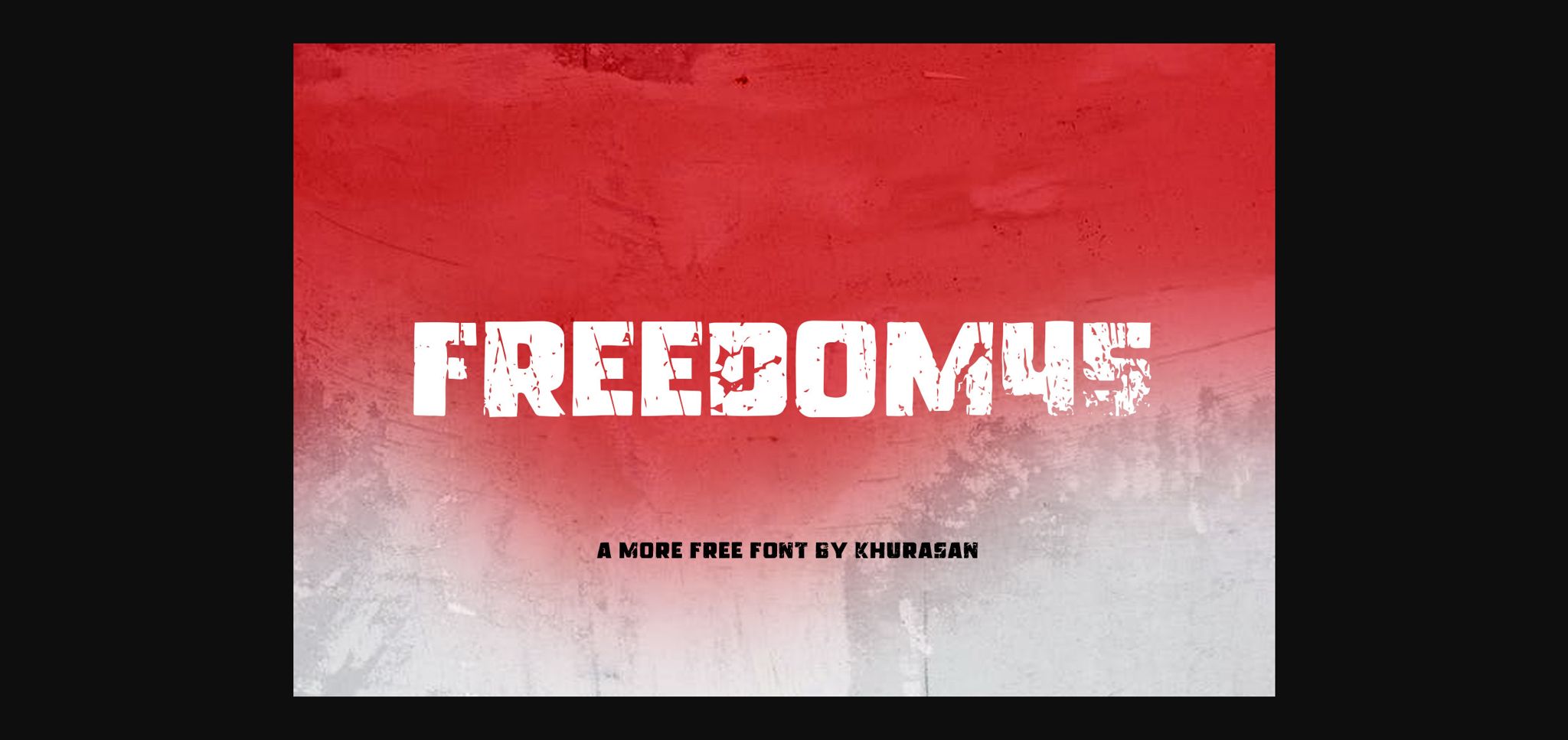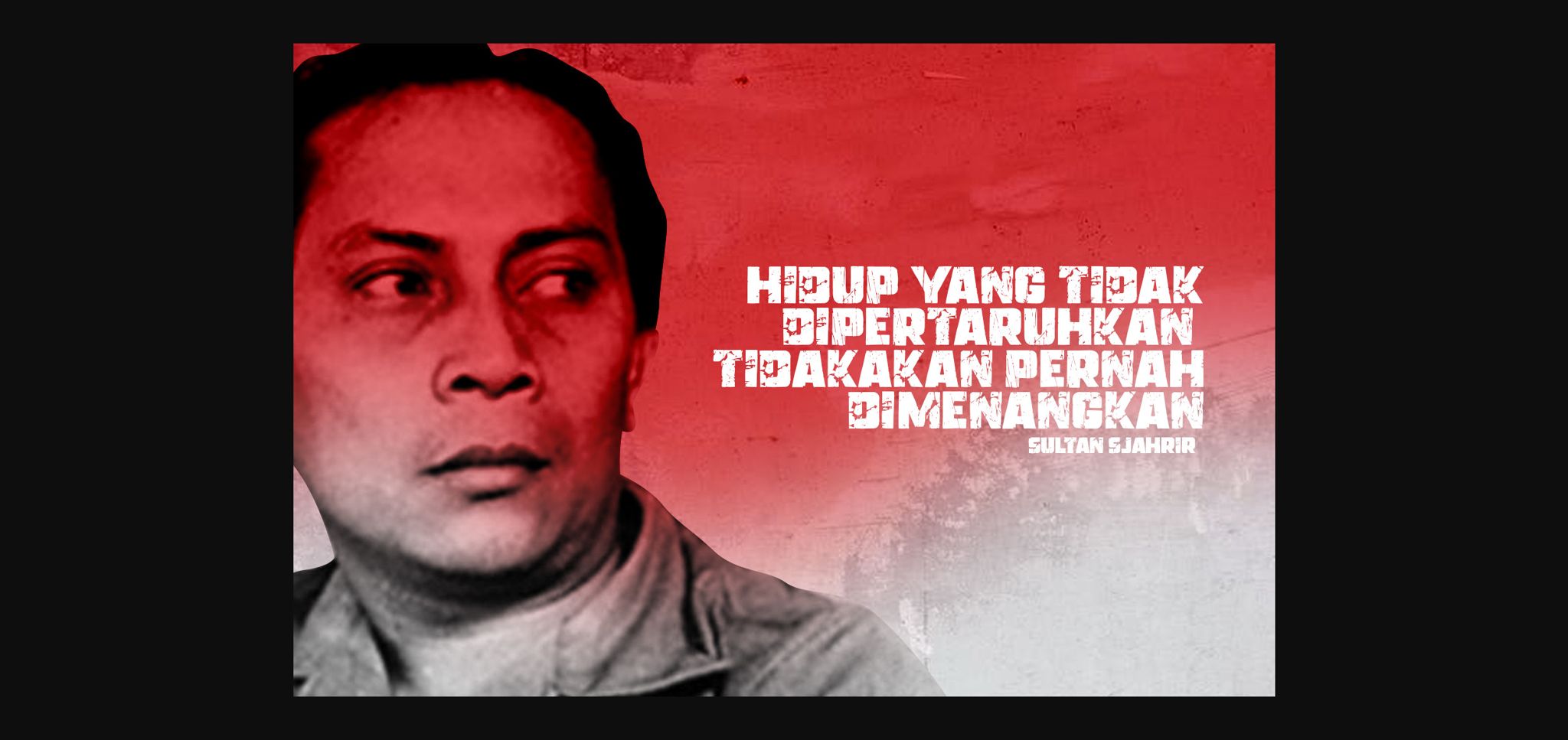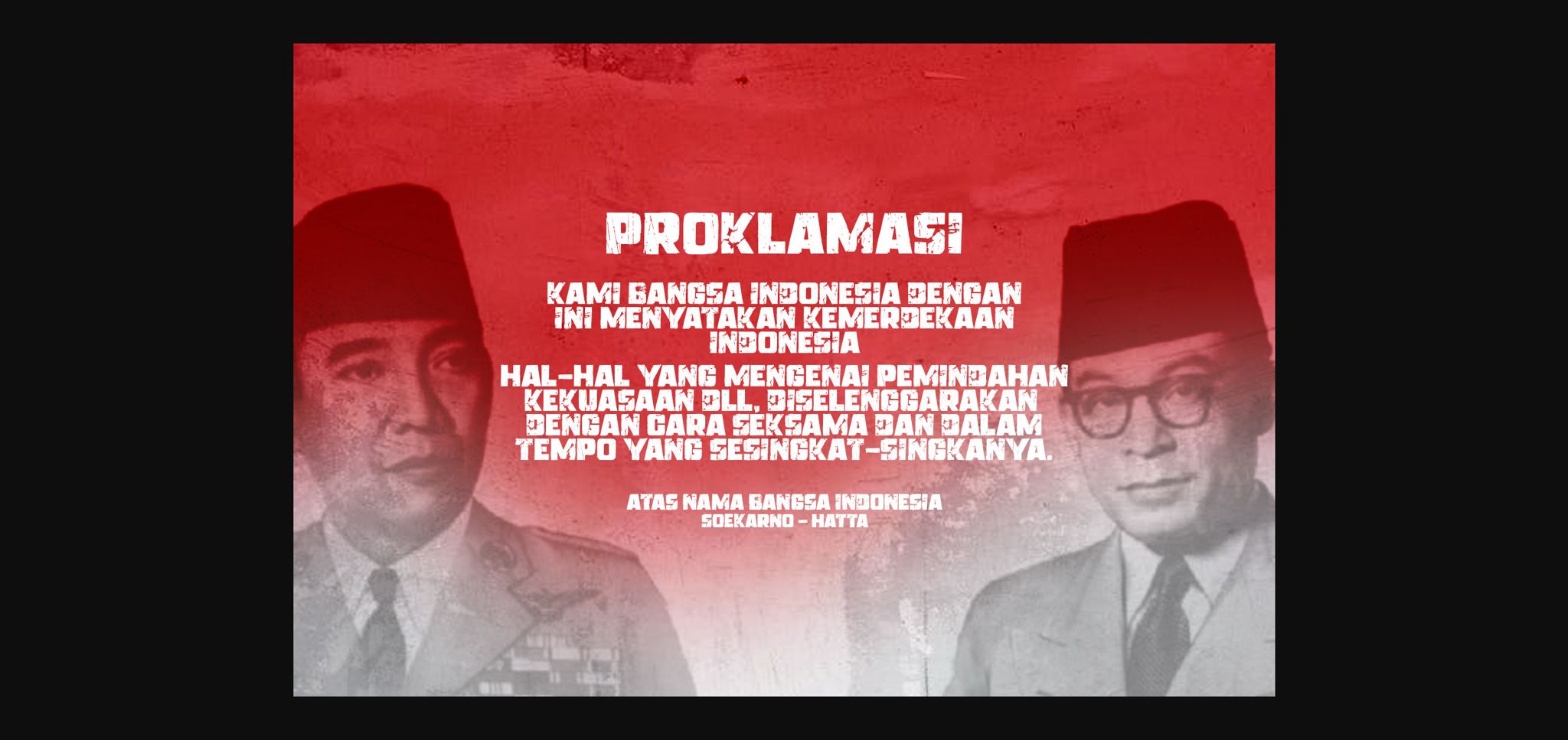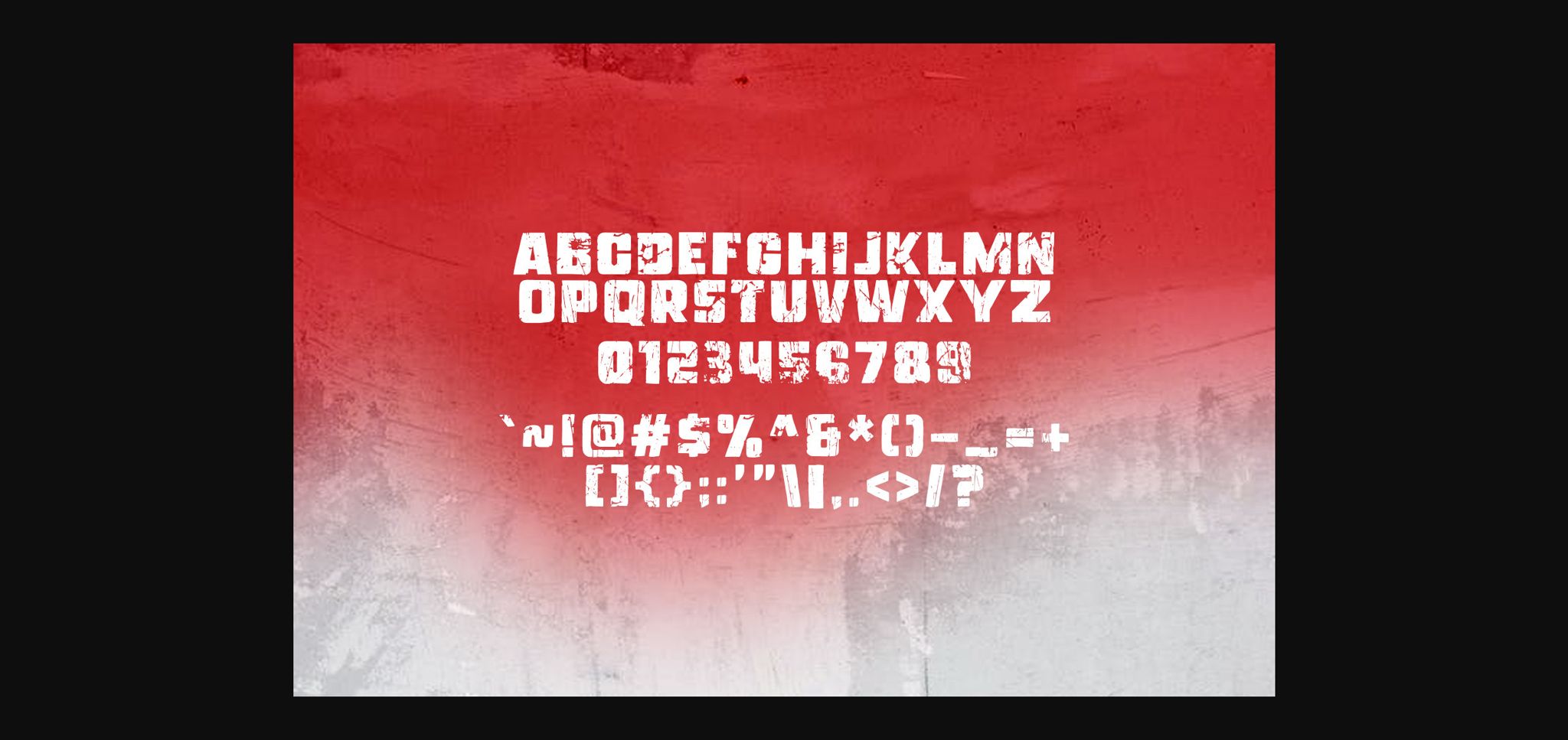
About Freedom45 Font
Freedom45 is a modern sans serif rough font perfect for posters, logos, magazines, book covers, banners, and many more! Get this quirky font, and use it to create lovely designs! It can easily be matched to an incredibly large set of projects, so add it to your creative ideas and notice how it makes them stand out!